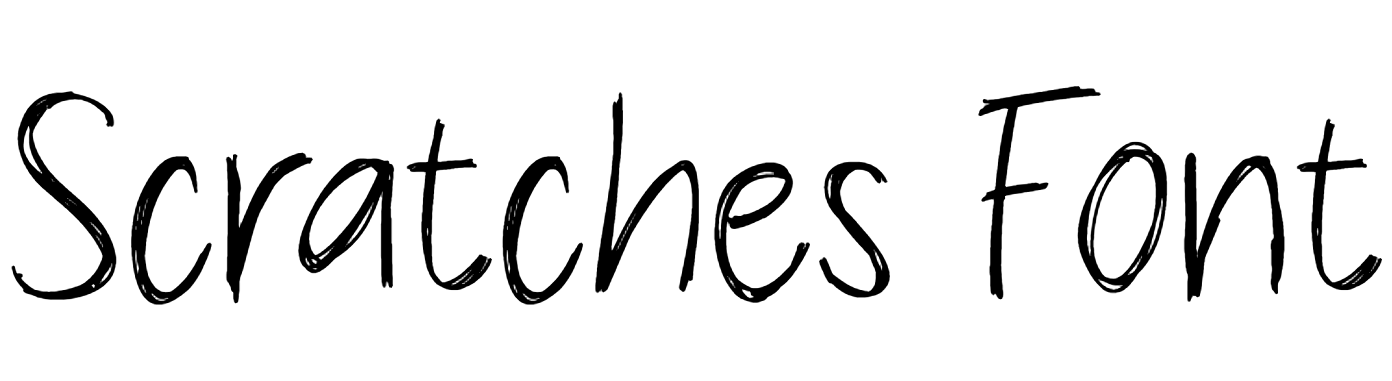
Scratches
Scratches is an old school font created by MJType (Muhamad Junaid) (2024). It has a vintage feel that recalls hand-painted signs, old labels and classic shopfronts. It's a free download, and you can try it with your own text in the preview above first.
With complete upper and lowercase letters and all ten digits, Scratches is ready for real wording, not just a single headline. Everyday marks like &, !, ? and @ are there too. Thanks to its accented letters, it also works for Spanish, French, German, Portuguese and Italian, not just English.
Think of Scratches for vintage signs, barber shop logos and retro labels. Put it on an off-white or kraft-paper background and it instantly looks older.
Yes. Scratches includes the accented letters needed for Spanish, French, German, Portuguese and Italian, so it works for more than just English.
It pairs nicely with a classic serif or a condensed sans serif for the supporting lines.